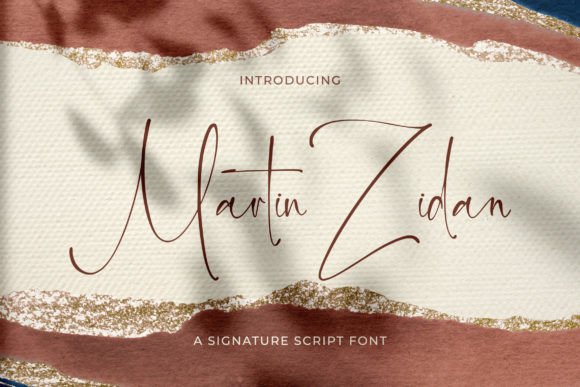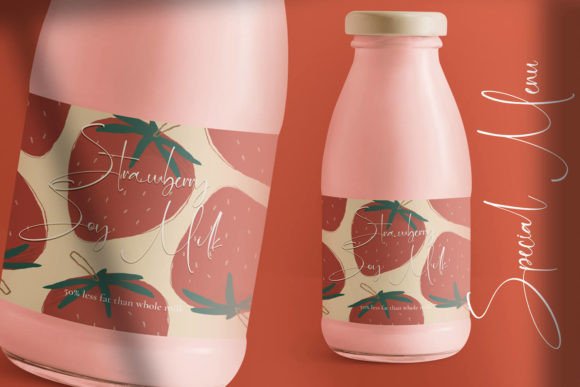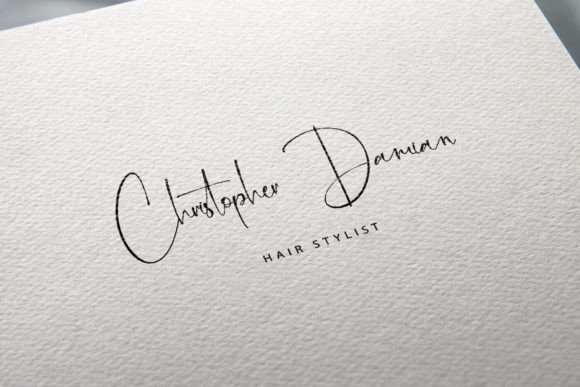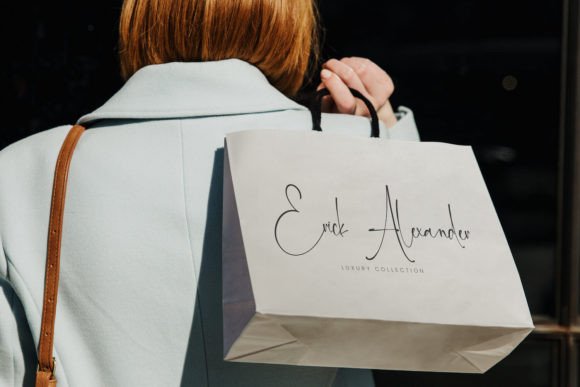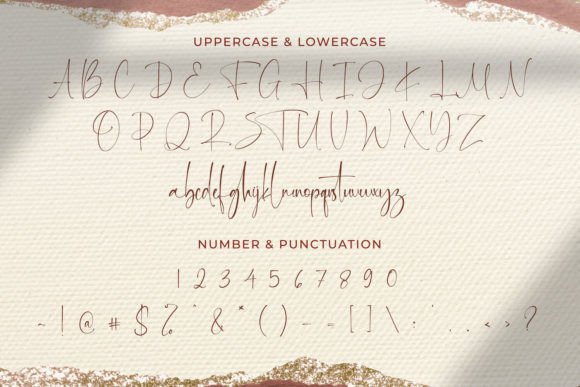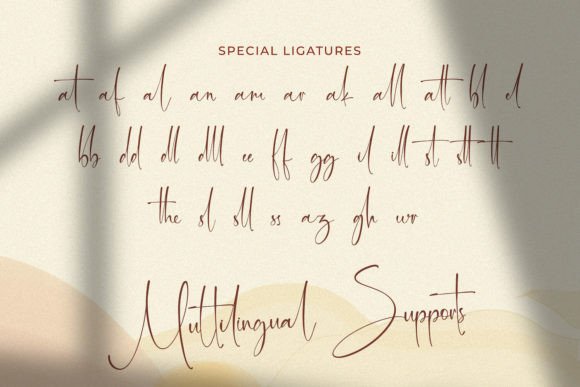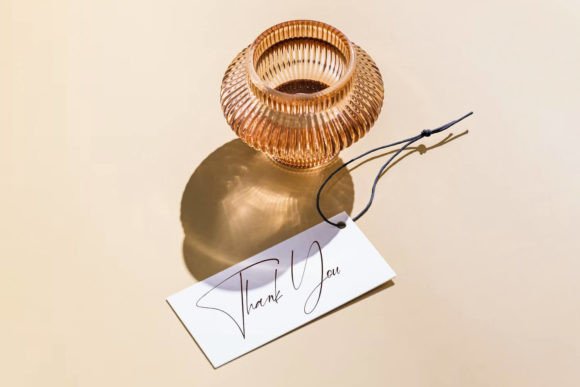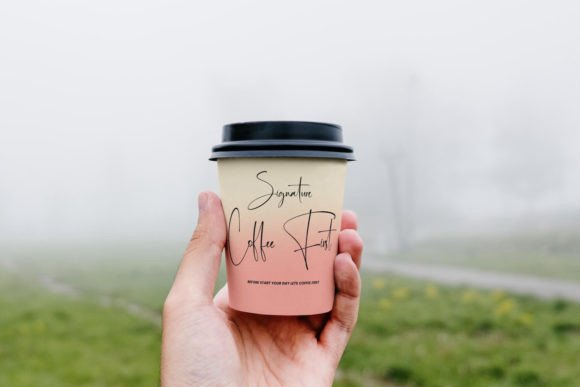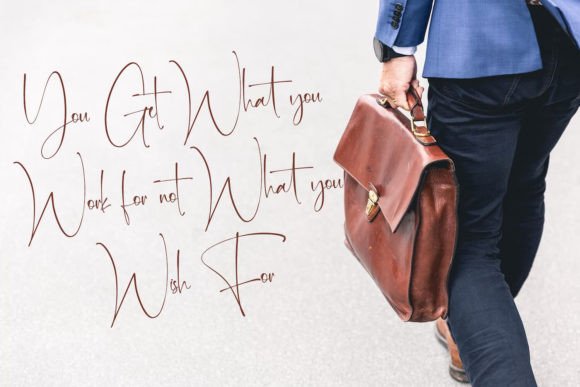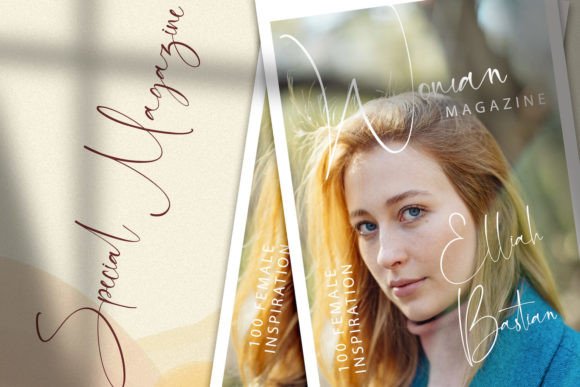
Martin Zidan Font
Martin Zidan Font Download – Elegant Flowing Handwritten Script
The Martin Zidan Font download is a delicate handwritten typeface made with elegance and charm. With its flowing strokes and balanced letters, it gives your work a polished, creative look. Because of its versatile nature, it works well for both personal projects and professional branding. From invitations to logos, Martin Zidan adds a unique handwritten touch.
Flowing Style of Martin ZidanFont Download
The Martin ZidanFont download features smooth curves and graceful rhythm. As a result, it feels close to natural handwriting while keeping a refined look. In addition, it makes your designs appear stylish without losing readability.
Martin Zidan Font Download for Invitations and Cards
Wedding invitations, thank-you cards, and greeting notes shine with the Martin ZidanFont download. Not only does it bring elegance, but it also adds a personal and romantic tone. Therefore, it is an excellent option for heartfelt designs.
Martin ZidanFont Download for Logos and Branding
The Martin ZidanFont download also works beautifully for logos, product labels, and packaging. Moreover, its elegant handwritten look helps brands feel professional yet approachable.
Martin Zidan Font Download in Posters and Creative Designs
You can also use the Martin ZidanFont download for posters, banners, and digital layouts. In addition, its flowing script adapts easily across both print and online platforms.
Readability of Martin ZidanFont Download
Some handwritten fonts may look nice but lack clarity. However, the Martin ZidanFont download keeps text elegant and easy to read. As a result, it is suitable for titles and body text alike.
Why Choose Martin ZidanFont Download for Your Projects?
The Martin ZidanFont download is flexible, stylish, and easy to use. In other words, it fits many personal and professional needs. Finally, it is a handwritten font that brings elegance and charm to every project.